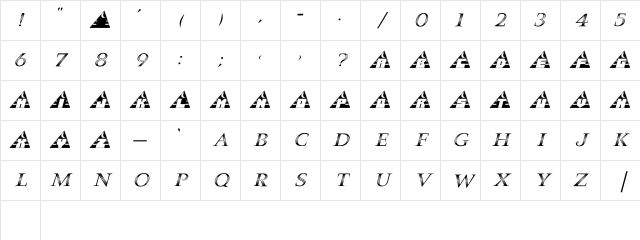
TPLincolnItal Regular Free Font
TPLincolnItal Regular
Design Context for TPLincolnItal
TPLincolnItal is a composed and adaptable typeface that performs quietly and consistently across a wide range of design contexts.